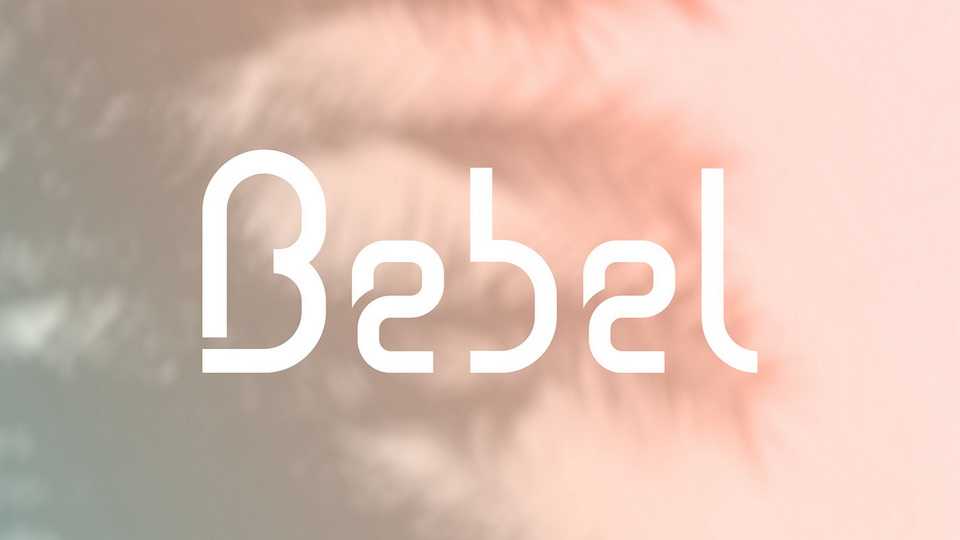
Download Bebel font, a modern geometric typeface with a minimalist look and unique personality. Bebel font family comes with four weights ranging from Light to Black that perfectly works for display use.
Designer: Camille Belliot